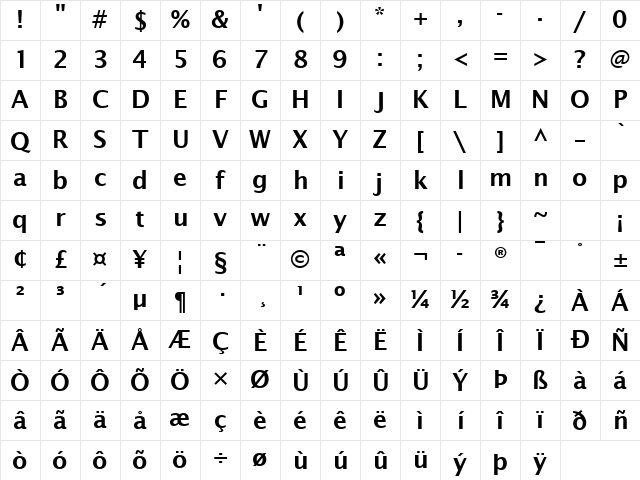
Lucida Sans Demibold Roman
Style: Demibold Roman
Complete Lucida Sans Demibold Roman glyph index. Displaying only characters natively supported by Lucida Sans Demibold Roman font.
Design Context for Lucida Sans
Lucida Sans is a composed and adaptable typeface that performs quietly and consistently across a wide range of design contexts. Its bold stroke weight gives it real presence on the page.